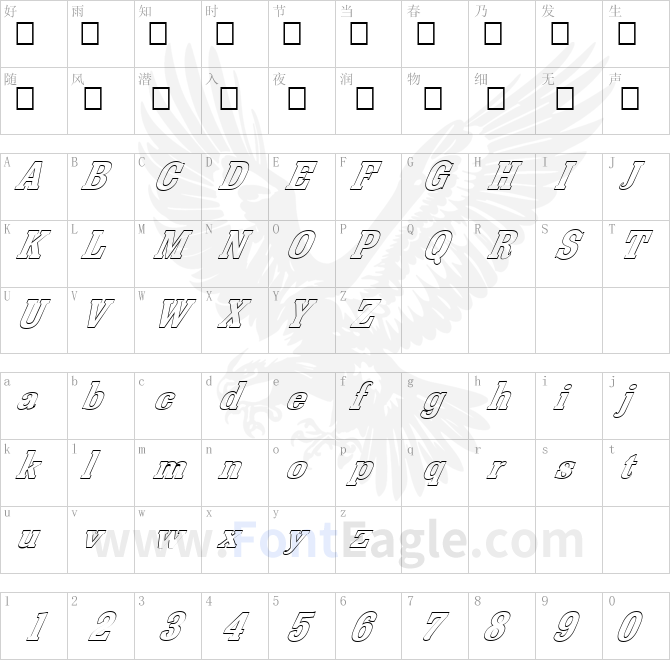
- Font name:FZ ROMAN 36 HOLLOW ITALIC
- Font Subfamily ID:FZ ROMAN 36 HOLLOW ITALIC
- Font Full Name:FZ ROMAN 36 HOLLOW ITALIC
- Postscript:FZ-ROMAN36HOLLOWITALIC